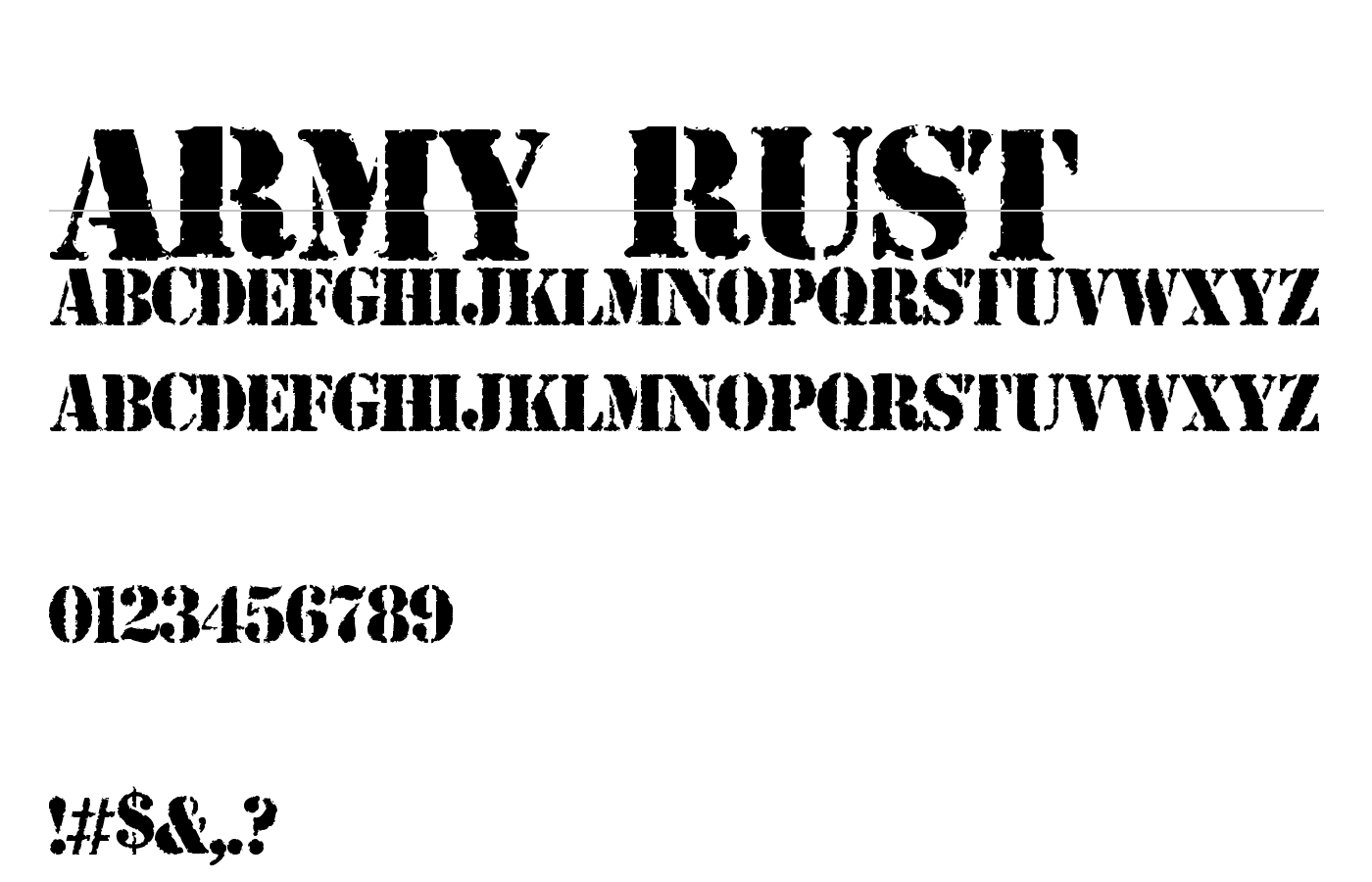
ARMY RUST is a bold, distressed stencil-style serif font that evokes a rugged, military-inspired aesthetic. With its heavy weight, solid structure, and weathered texture, it conveys strength and toughness, making it ideal for designs that require a vintage yet impactful feel. This font works particularly well in logos, posters, and packaging where a gritty, authoritative look is desired.
ARMY RUST Font